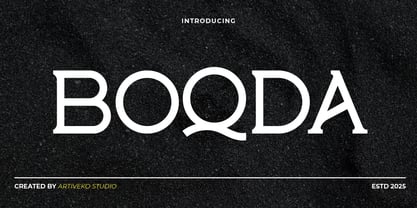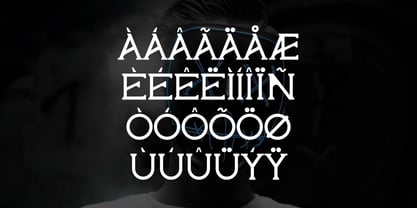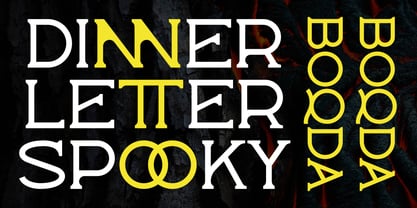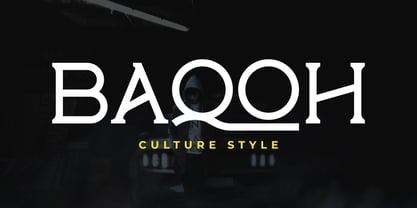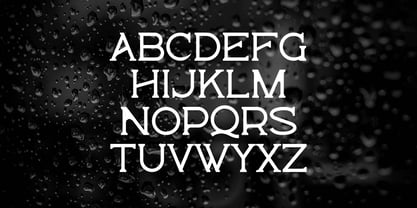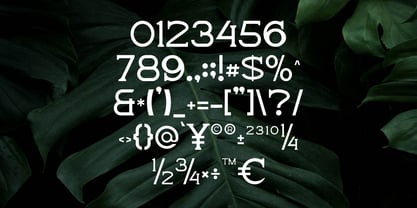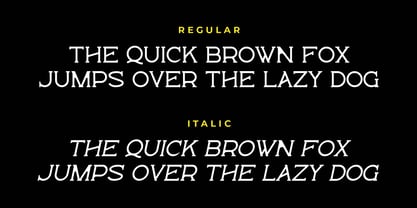
Boqda
by Artiveko
The Boqda Font Family was designed by Iwan Alwan and published by Artiveko. Boqda contains 2 styles and family package options. More about this family
Boqda is a modern serif font that exudes elegance and confidence. With sharp serifs, stylish contrast, and contemporary proportions, Boqda is perfect for branding, magazine headlines, packaging, and sophisticated logo designs. Featuring multilingual support, ligatures, and alternates, it brings a refined yet bold presence to any creative project.
Designers: Iwan Alwan
Foundry: Artiveko